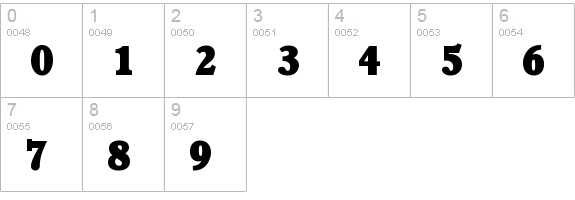
Chorea Display SSi Black Font Details
Chorea Display SSi Black is a maximum-weight, dramatic variant in the Chorea typeface family \xE2\x80\x94 well suited to maximum-impact headlines, posters, and packaging.